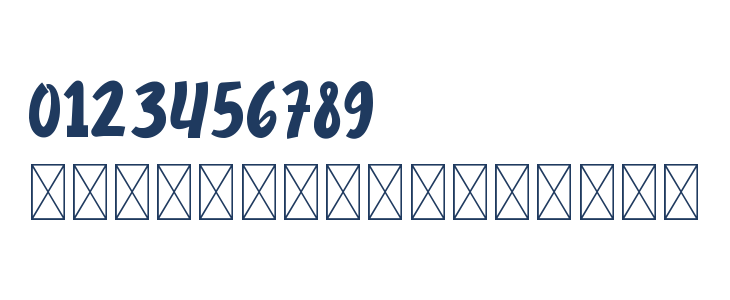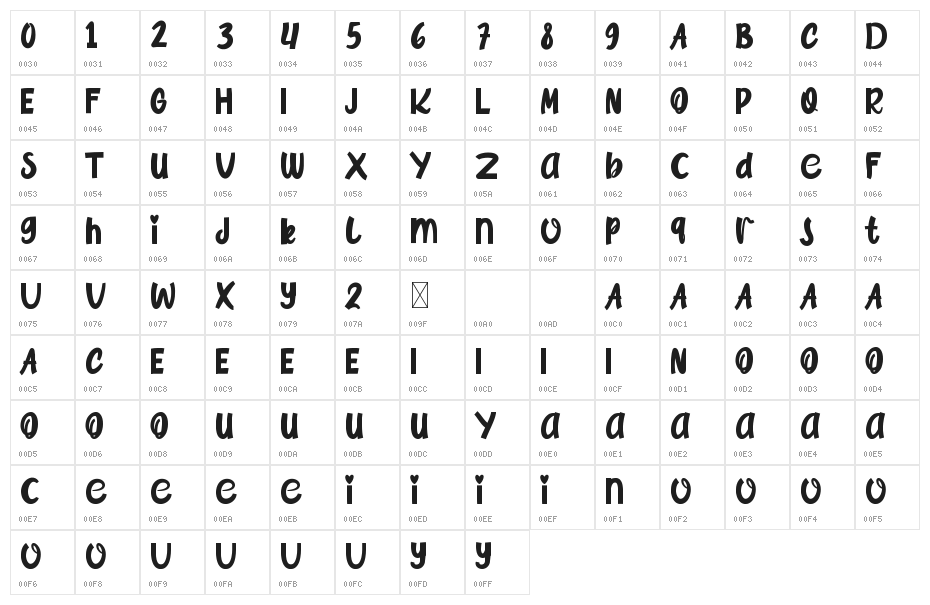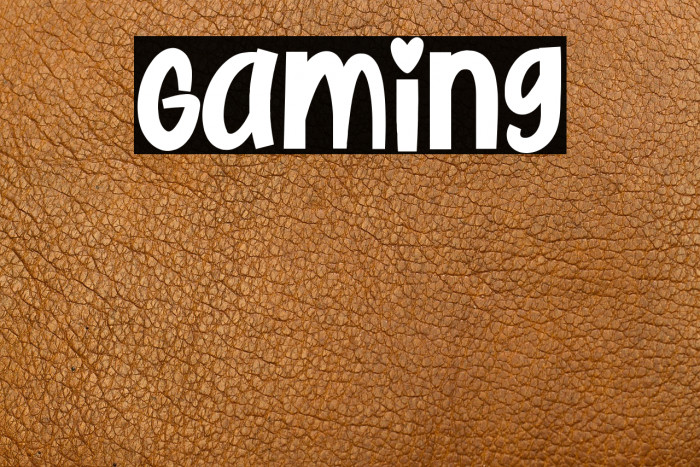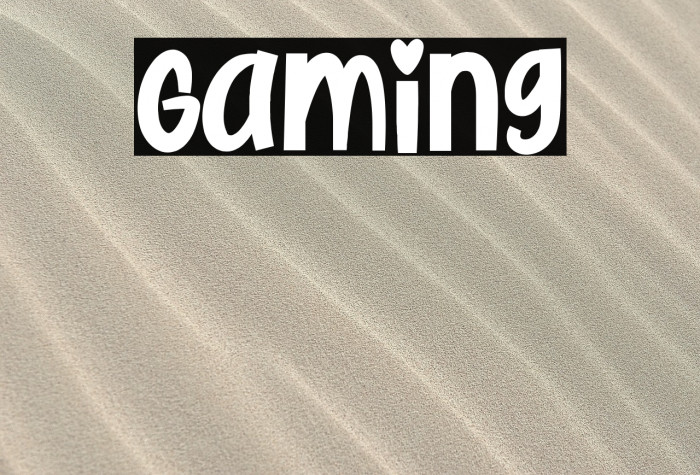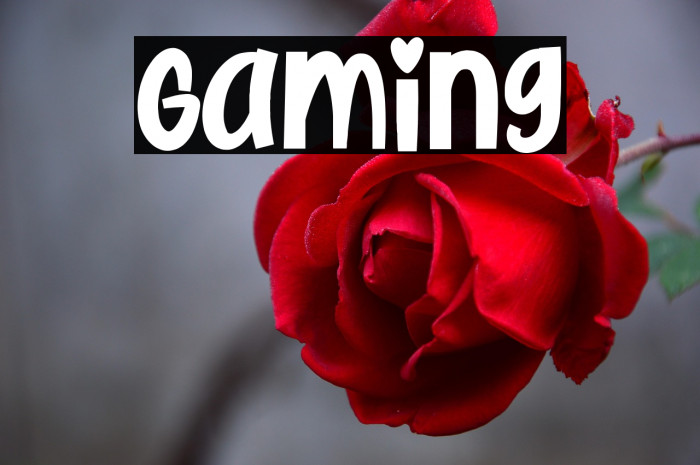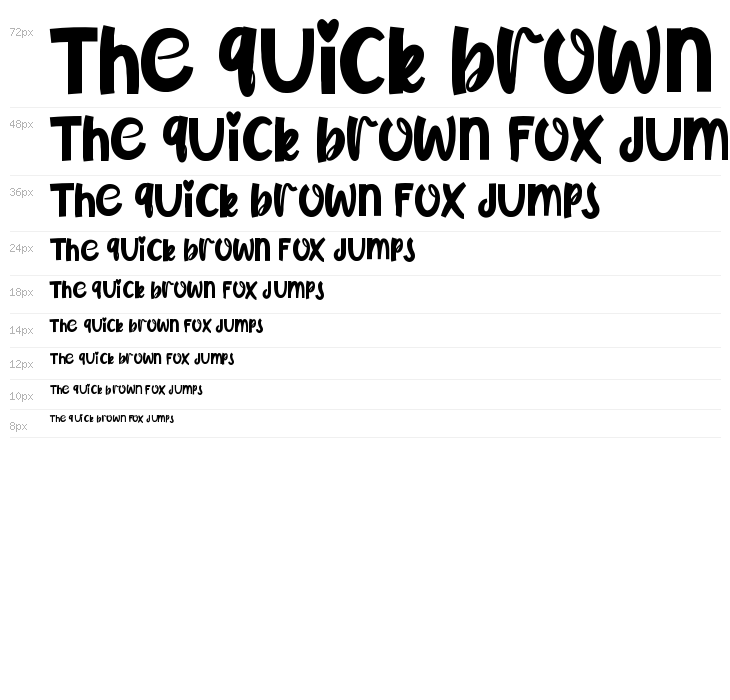
Gaming Font
Gaming Description
This playful and bold font features a whimsical, hand-drawn style with a strong presence. The uppercase and lowercase letters are characterized by their thick, rounded strokes and slight slant, giving them a dynamic and energetic appearance. The numbers and special characters maintain the same lively aesthetic, ensuring consistency across all elements. The font's unique charm is enhanced by its irregular shapes and playful curves, making it ideal for projects that require a fun and engaging visual impact.